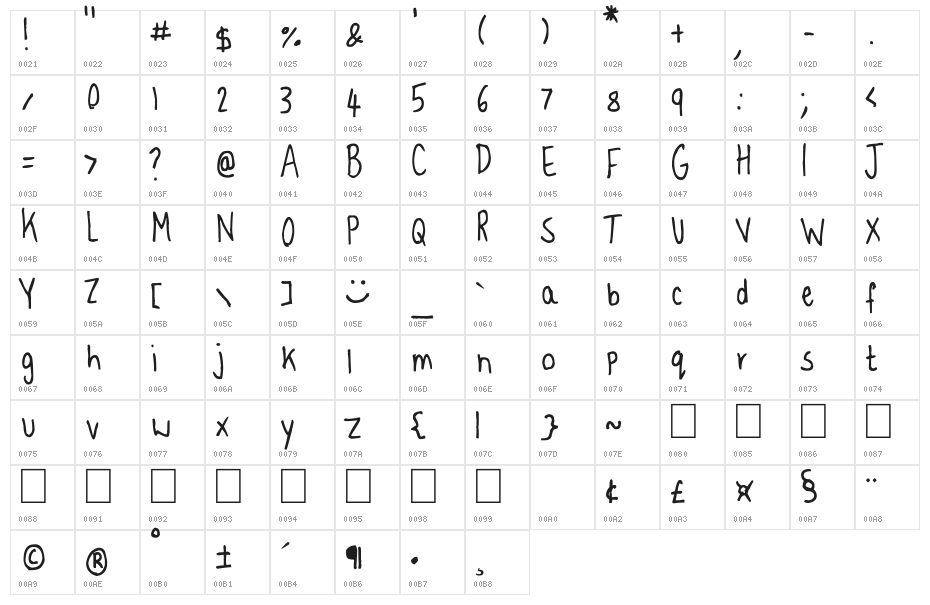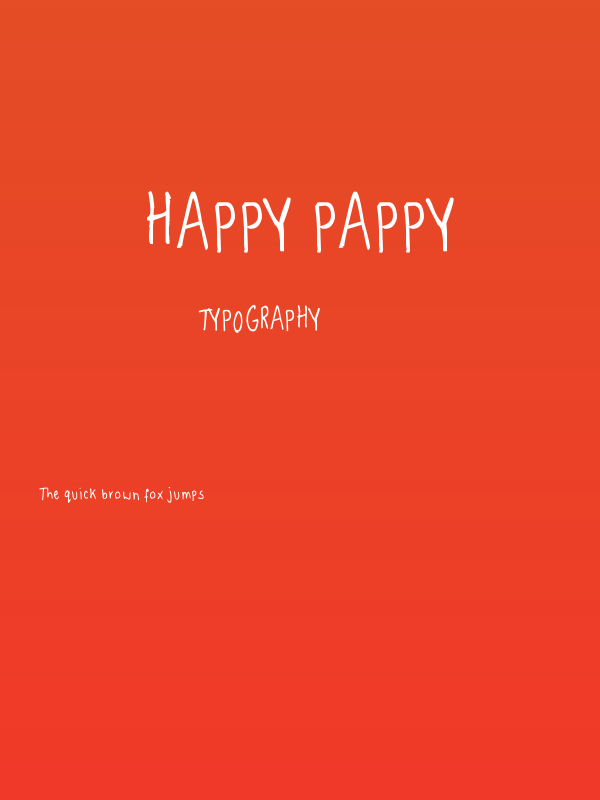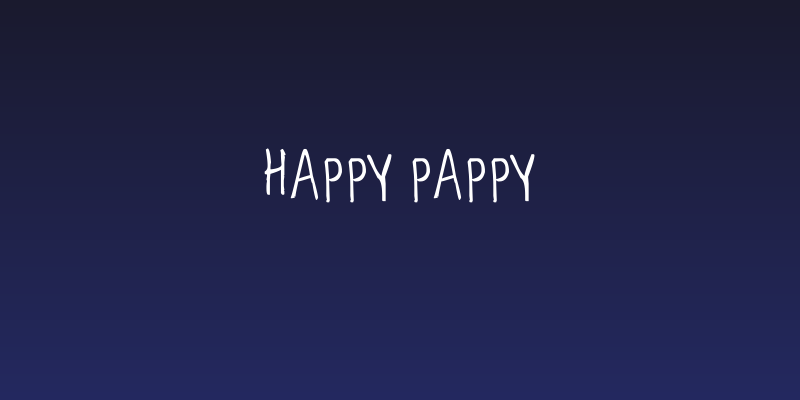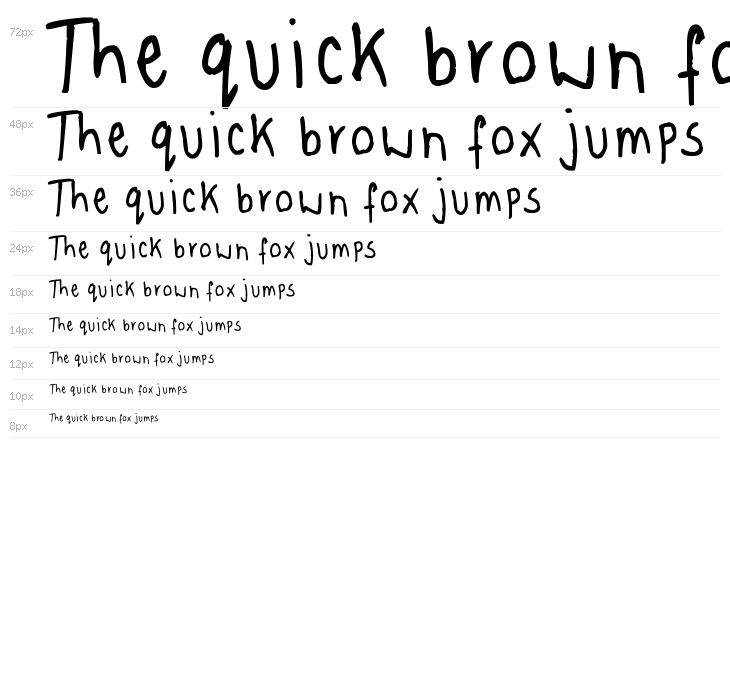
Happy Pappy Font
| Stile generale | Whimsical |
| Caso d'uso | Headlines, Logos, Invitations |
| Progetti proposti | Ideal for children's books, greeting cards, playful branding, and casual invitations. |